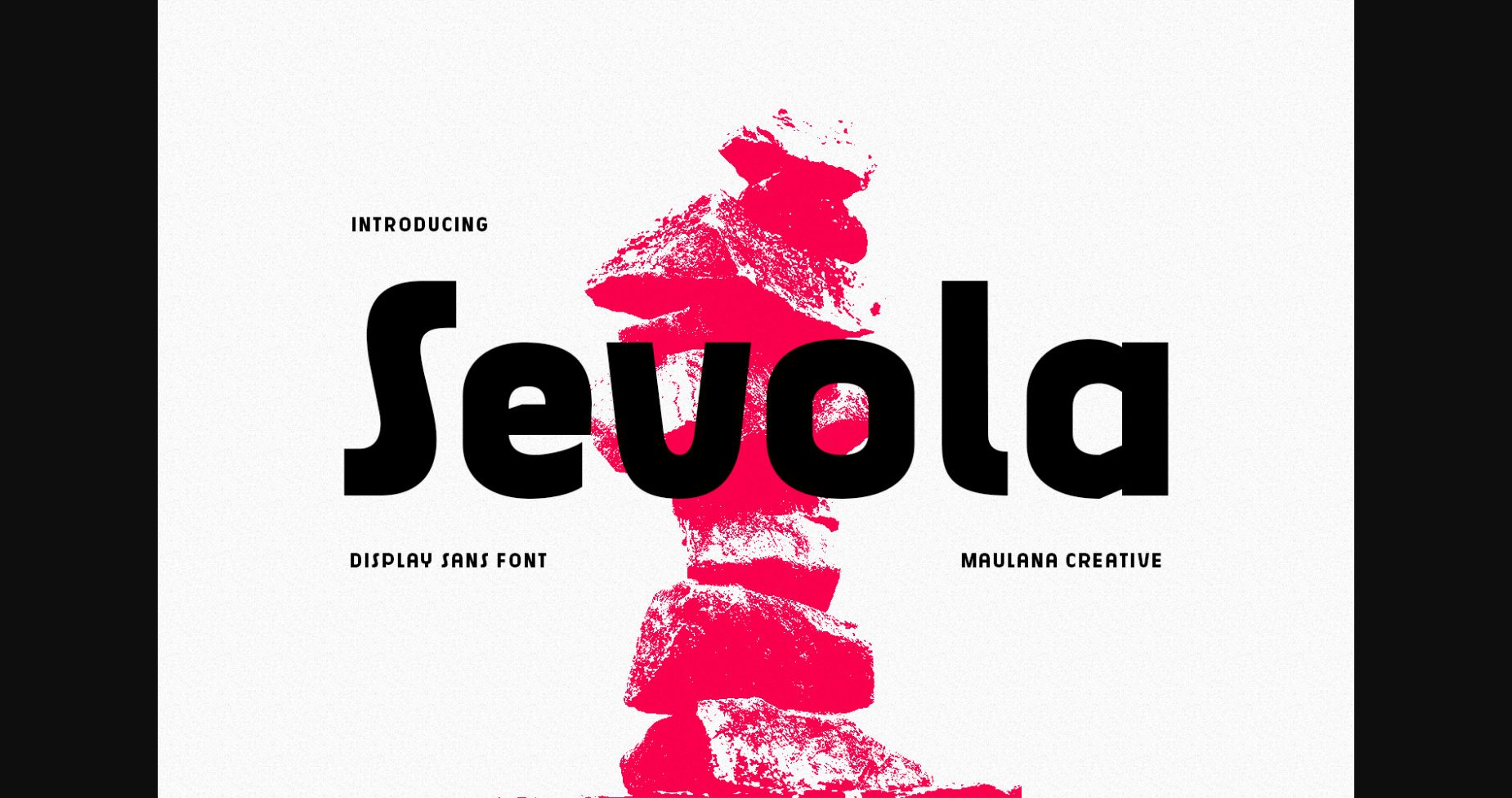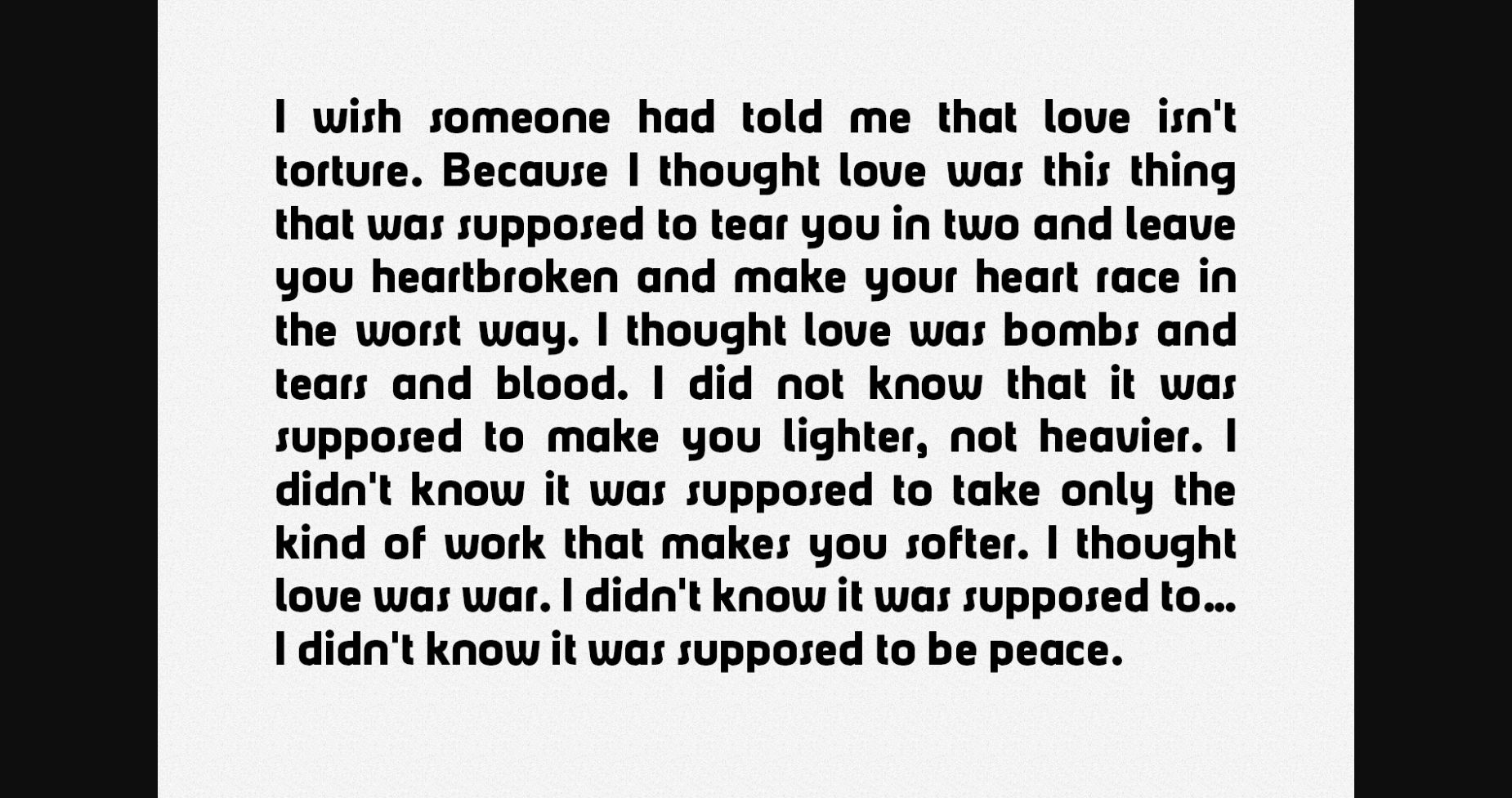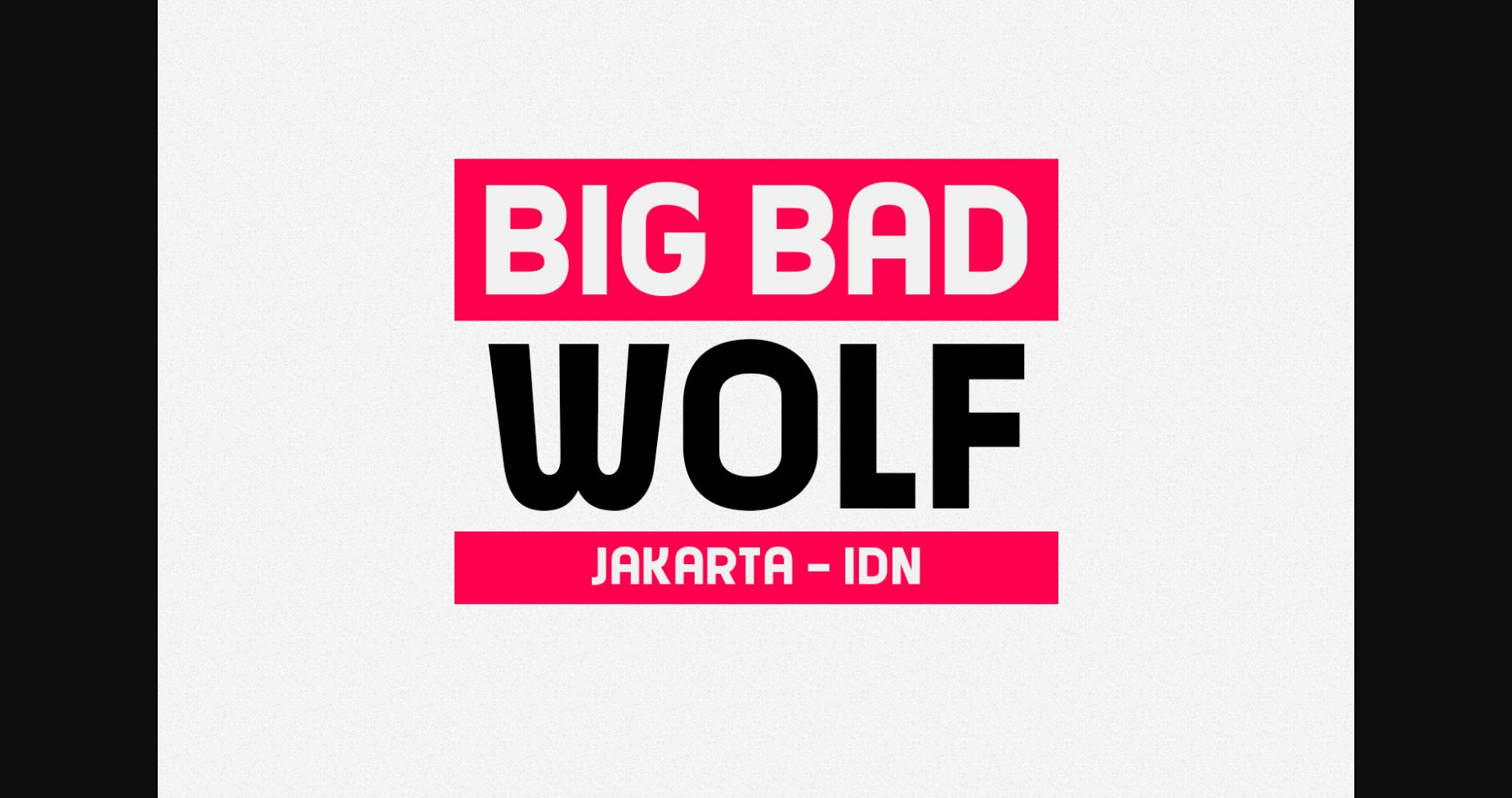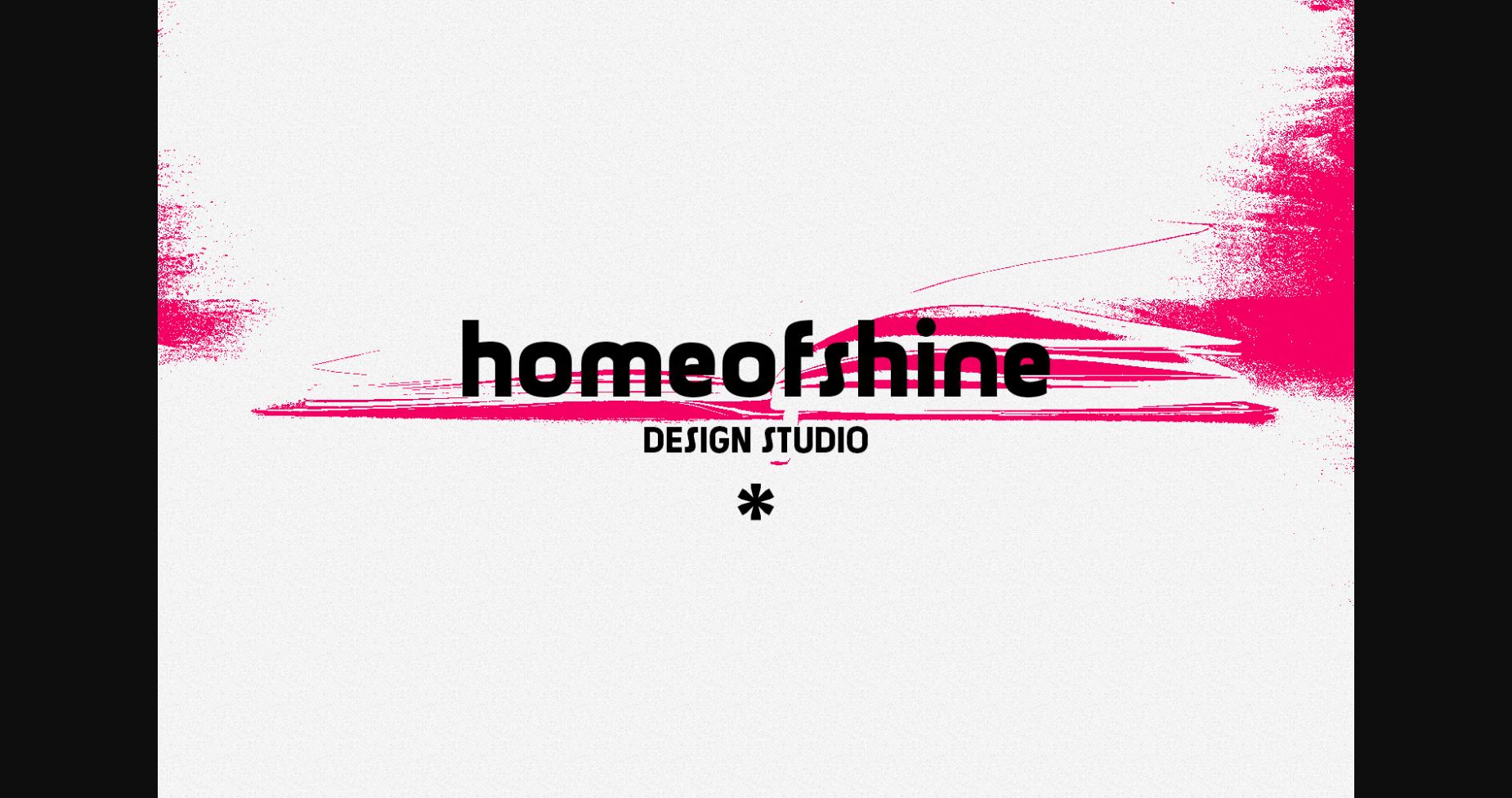
About Sevola Font
Sevola is a charming and approachable sans serif font perfect for casual designs. Its clean lines and rounded edges create a friendly and inviting feel, while its balanced proportions and subtle variation in stroke width give it a professional touch. Sevola is versatile and easy to read, making it ideal for a variety of projects, from branding to social media graphics.